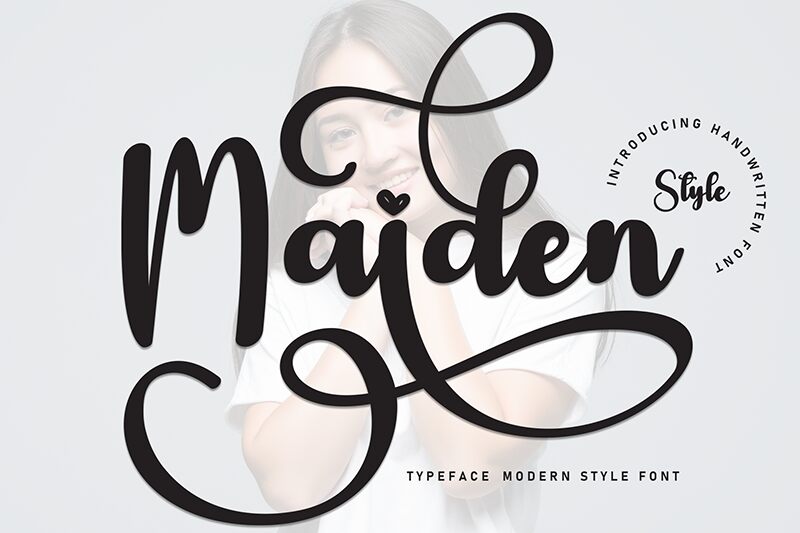
Maiden
Maiden font, designed by Scratchones, is a brush style font that balances romantic whimsy with expressive modern style. Each character is fluid and friendly with an elegant flair, combining well as a whole to form words in an attractive way. Choose this gorgeous free script font when you want a standout type with a classic appearance.
Where can you use Maiden? Think invitations and greeting cards first (especially to romantic events like weddings or anniversary dinners) but note that it can also look amazing on menu typography, media covers, posters, apparel designs and even branding projects and video text backdrops!